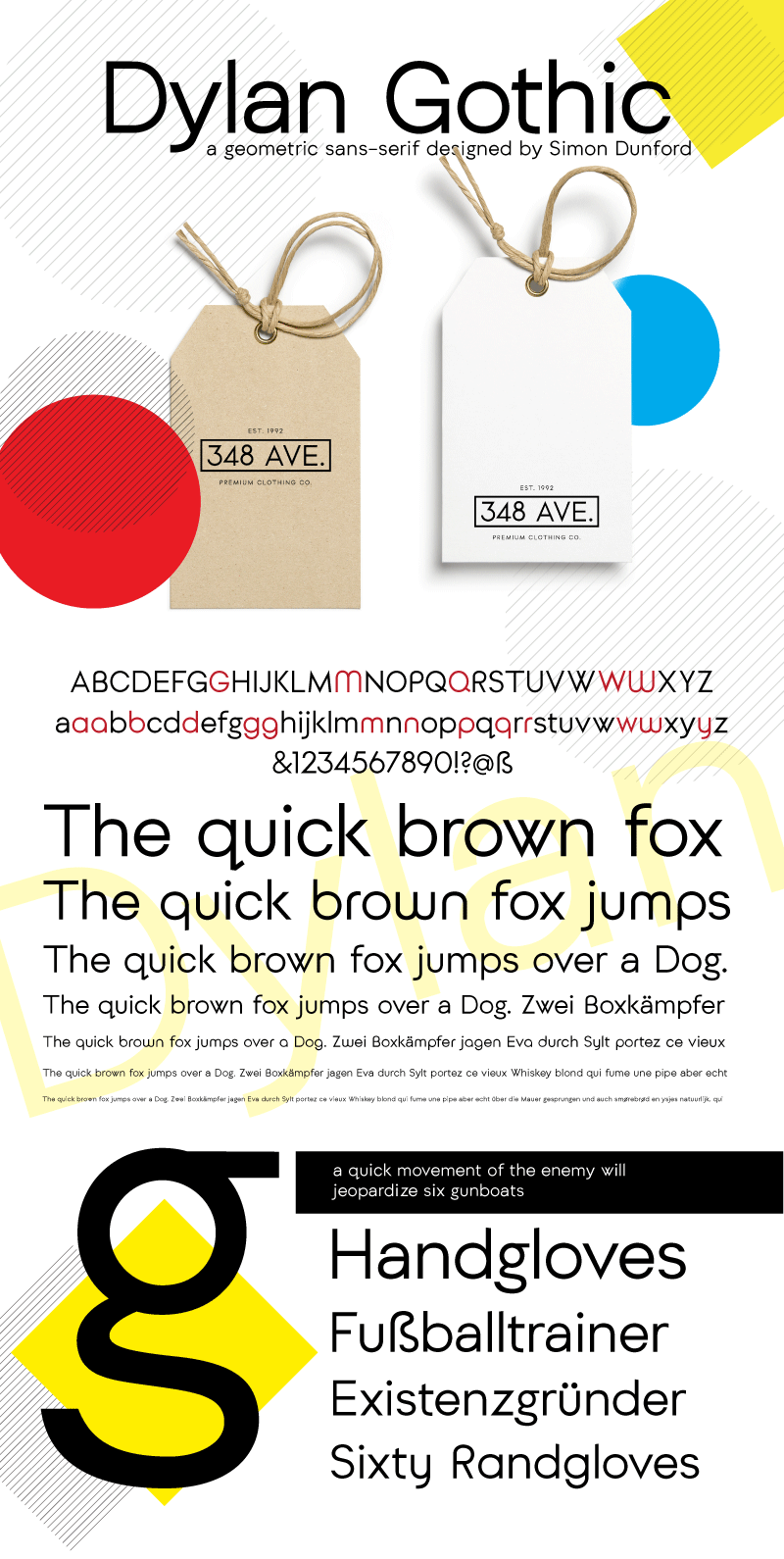
Preview and download Dylan Gothic Font. Created by Simon Dunford in Basic Sans serif styles with Demo license.
This is the demo versions it does not feature kerning or punctuation. to purchase full version please visit: https://graphicriver.net/item/dylan-gothic/19955666 Dylan is a geometric sans-serif typeface designed for all branding, and visual needs. Dylan pays tribute to a lot of the traditions of the Bauhaus school of design, and some of the masters of that time. Dylan follows the modern take on geometric similar to Neue Kabel and FF Mark, which features wider letter sizing, along with several stylistic alternatives. This geometric typeface follows a lot of traditional geometric principles along with modern updates. This is the regular weight, and in the future with the support of the users there will be several other weights added. If you have any concerns about kerning pairs or letter spacing please do no be afraid to contact me at: simonddunford@gmail.com |